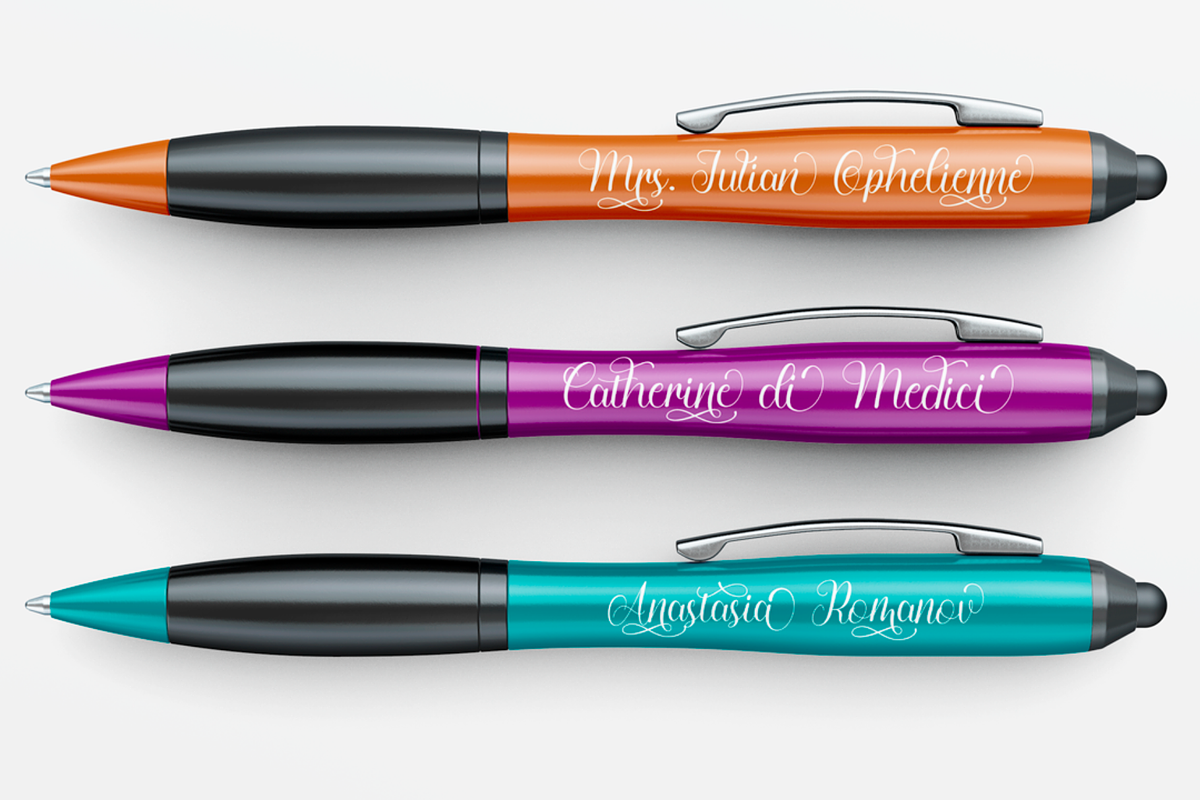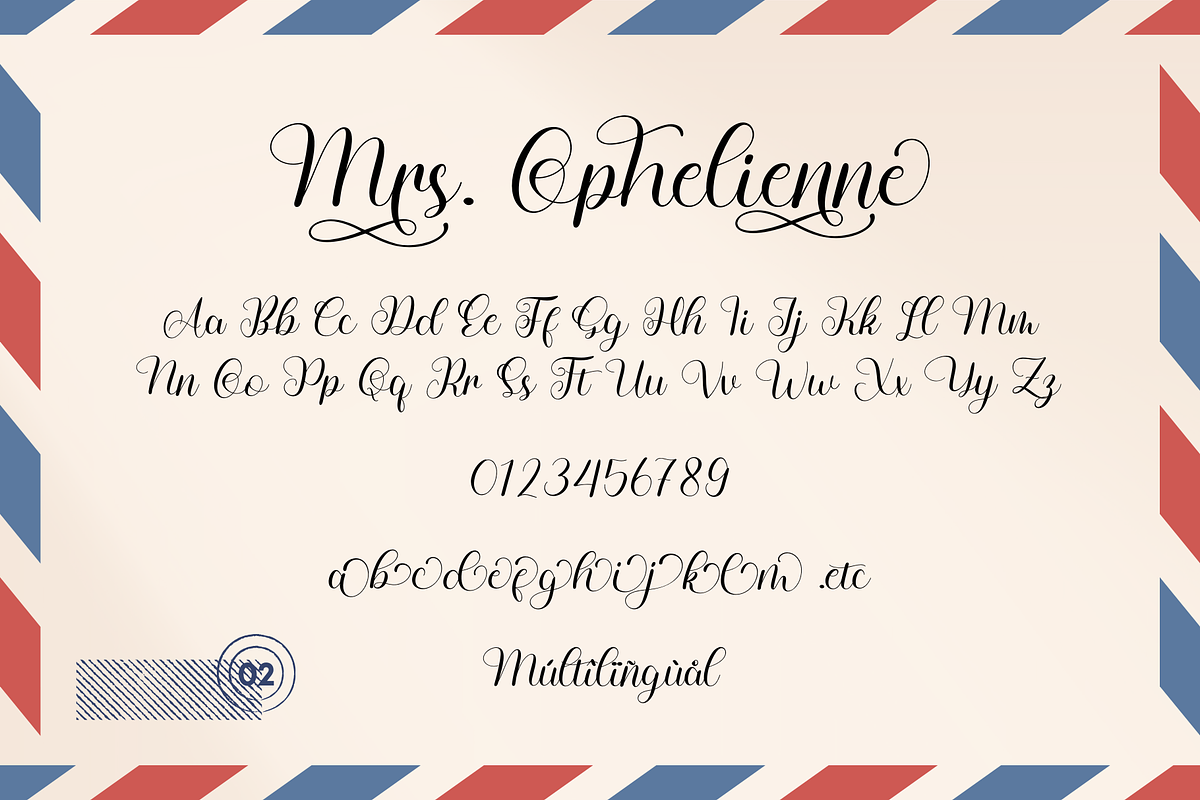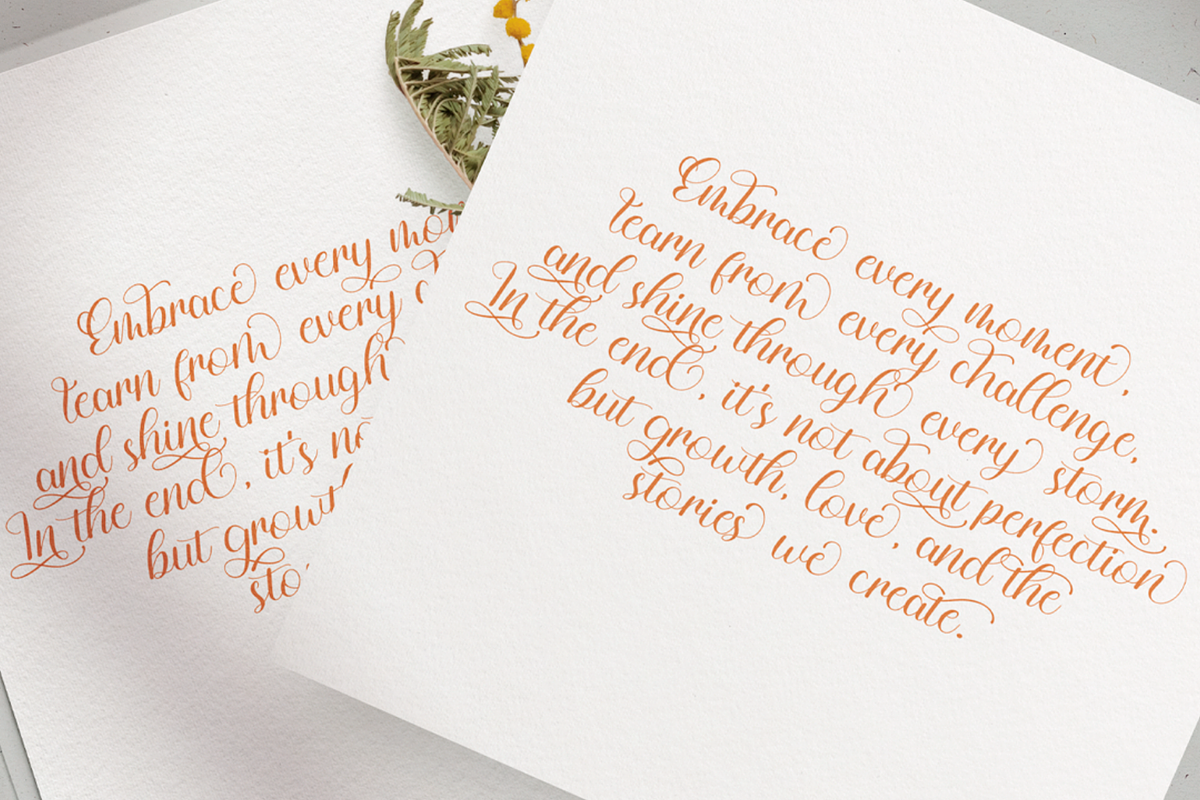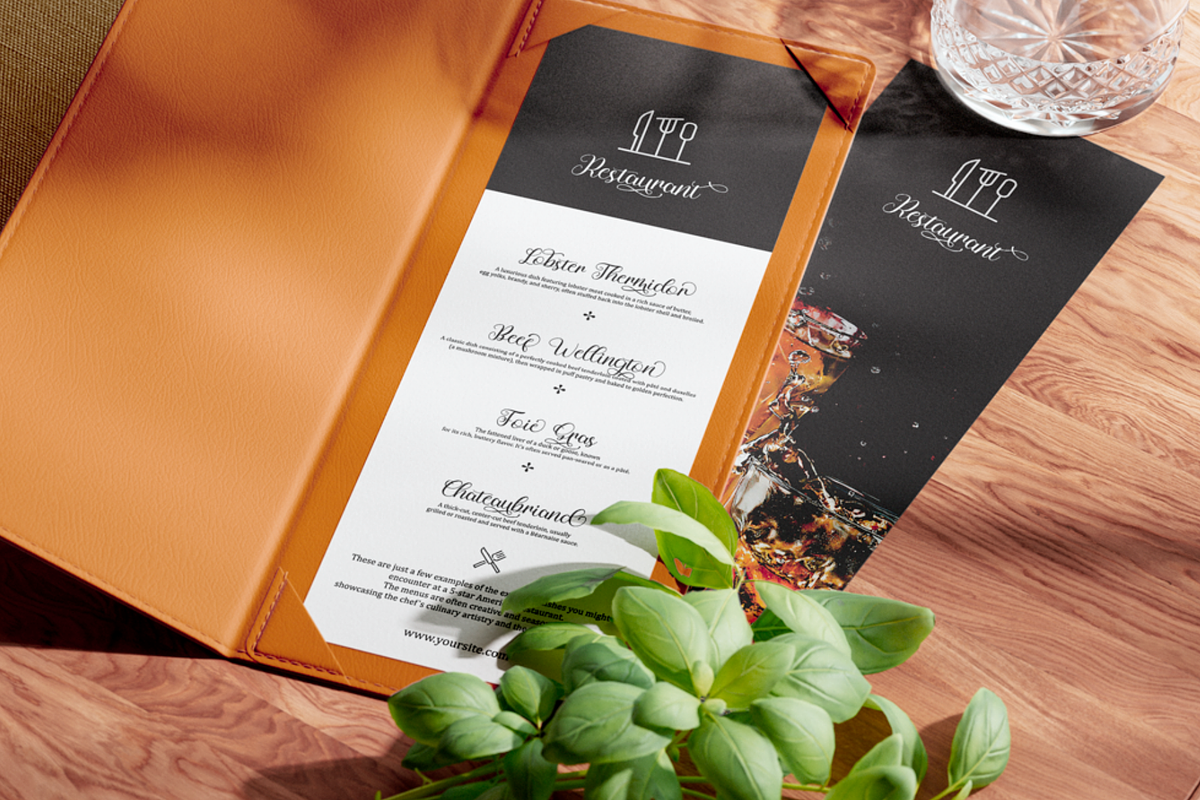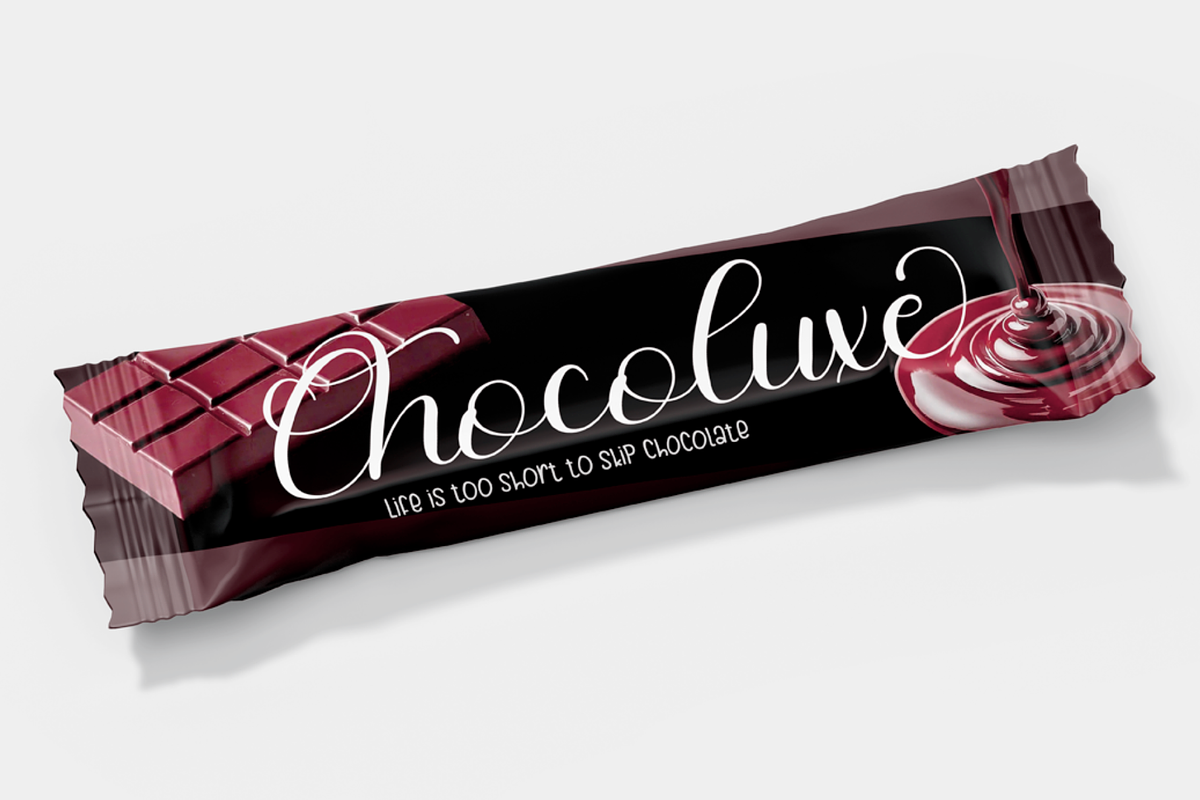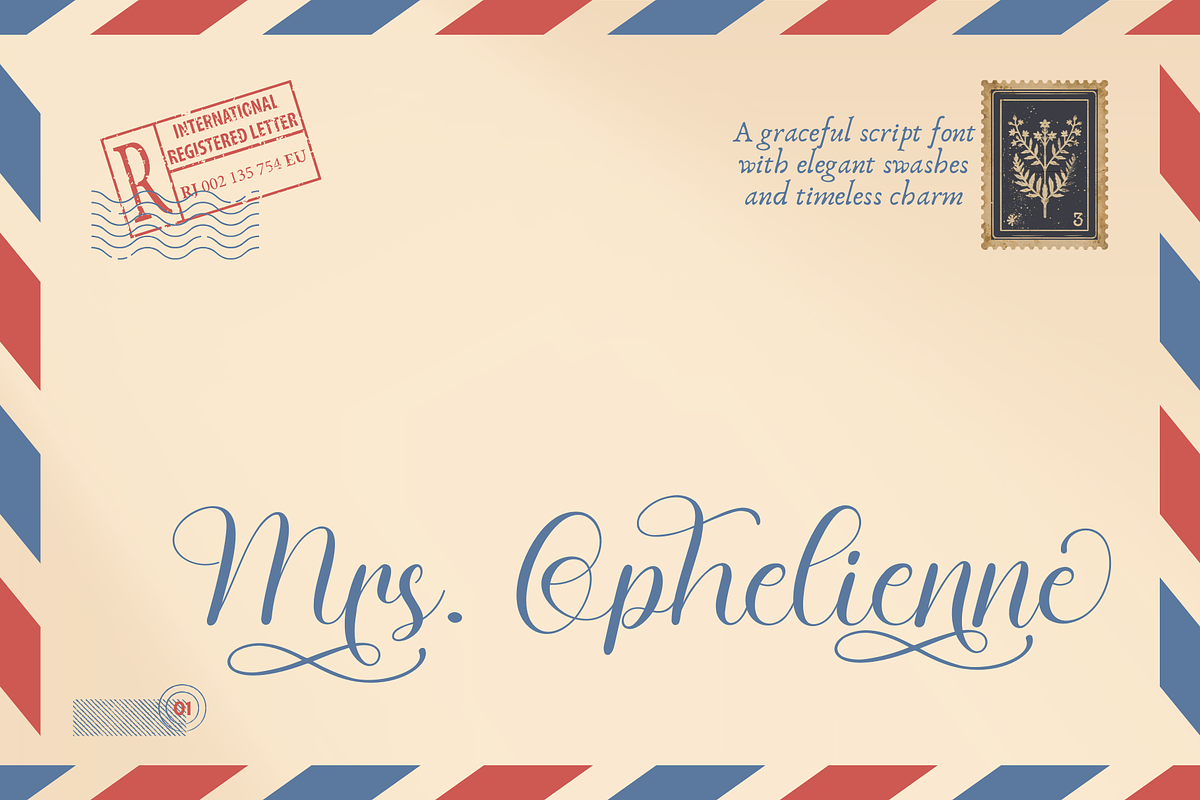
Mrs. Ophelienne
Mrs. Ophelienne is a graceful script font designed to capture elegance and sophistication. With its fluid strokes and carefully crafted details, this font offers a timeless charm, perfect for luxurious branding, wedding invitations, packaging, and editorial designs. The abundance of alternates and ligatures makes every word look beautifully handwritten, adding a personal and artistic touch to your creations.